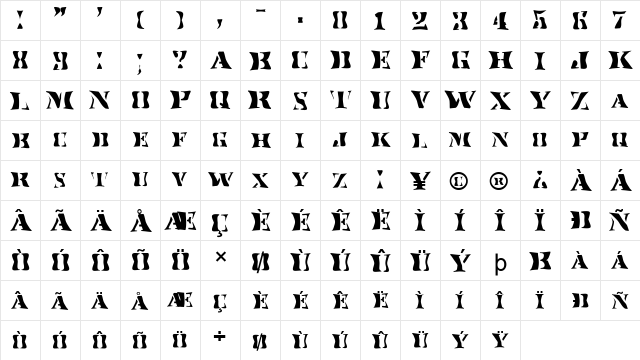
FZ WARPED 17 Normal Font Preview
FZ WARPED 17 Normal
FZ WARPED 17 Normal Font Details
Design Context for FZ WARPED 17 Typeface
FZ WARPED 17 is a composed and adaptable typeface that performs quietly and consistently across a wide range of design contexts.